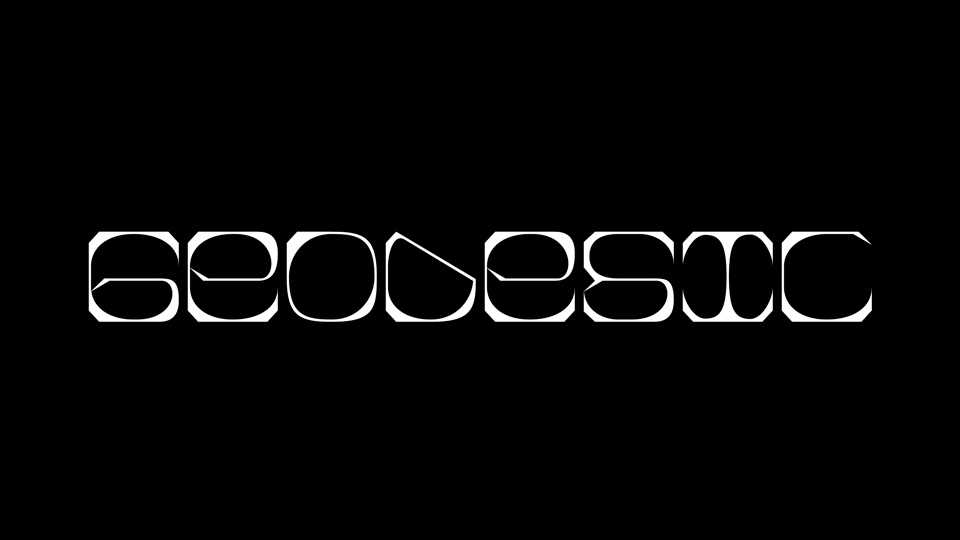
Download Geodesic font, a modular display typeface with sharp contrasting elements based on a block grid. Geodesic works best for posters, titles, short texts and other contemporary artworks.
Designer: oxomoto